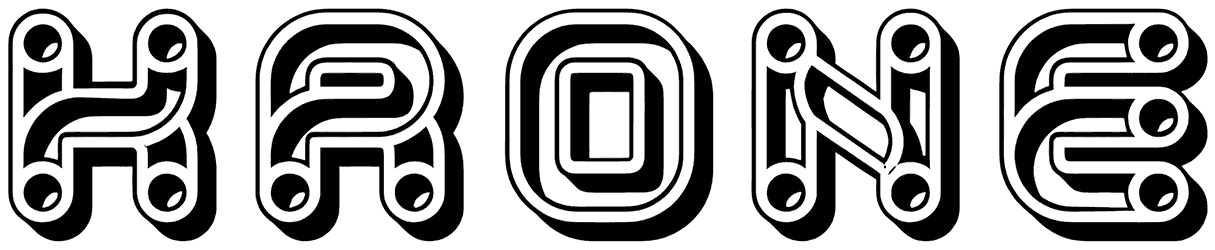
Krone Font
In addition to being designed in a fictional way, the Krone font is also an animated font that can be incorporated with video games, and animations, so that it can be placed among LEDs, animations, and video games fonts.
Although this retro tech font does not support small letters and numbers, it can still display your ad in large dimensions. You can be sure that the audience will react to a font like that in a positive way.